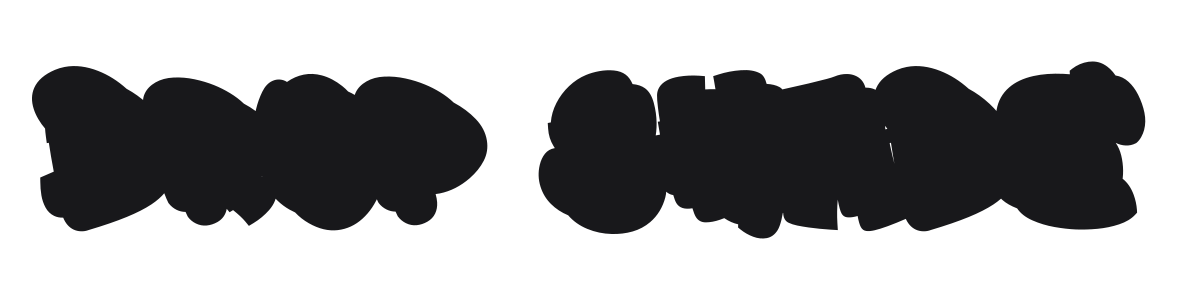
Drop Shade
Drop Shade is a melted 3D graffiti display font with ultra-heavy bubble letters and a dramatic drop-shadow extrude effect. The characters fuse into an organic, flowing mass with rounded dripping forms straight out of wildstyle street art. Built for bold, high-impact display contexts where raw urban energy is the point.